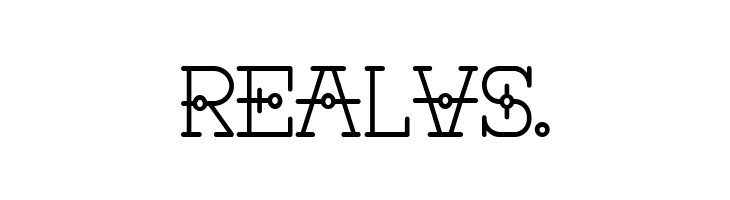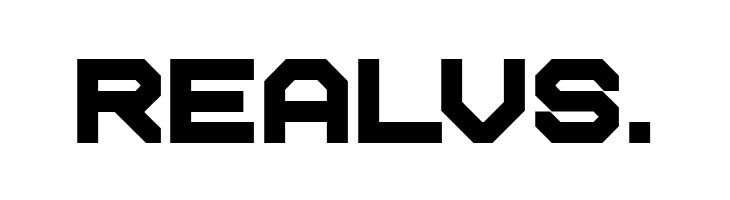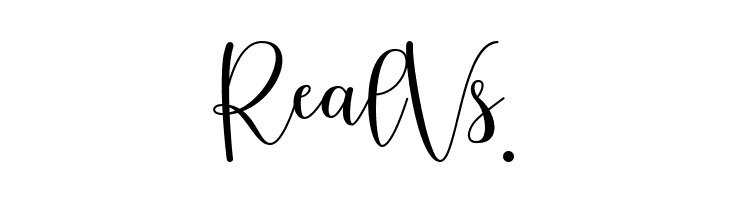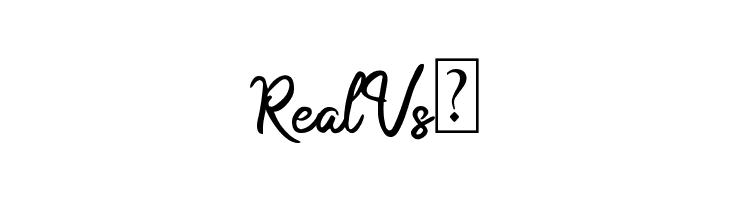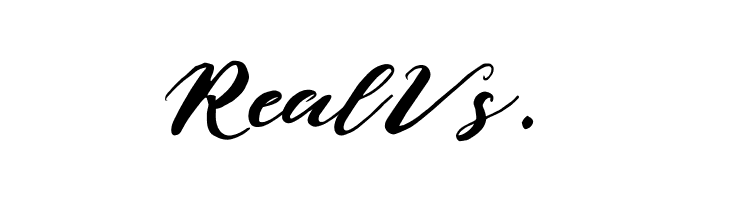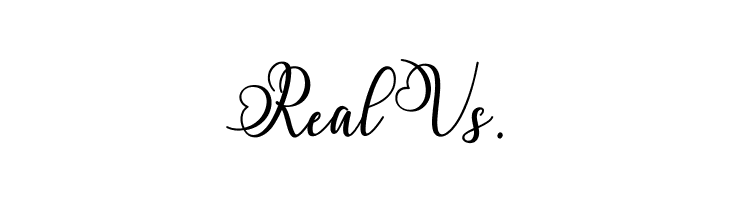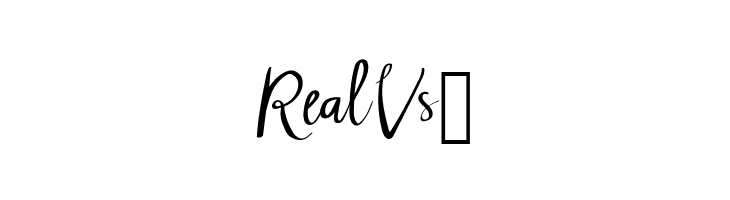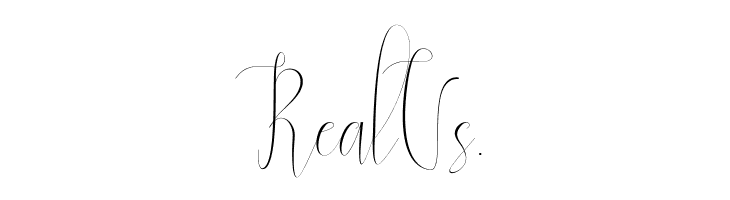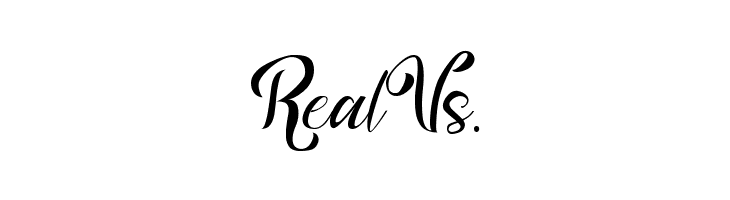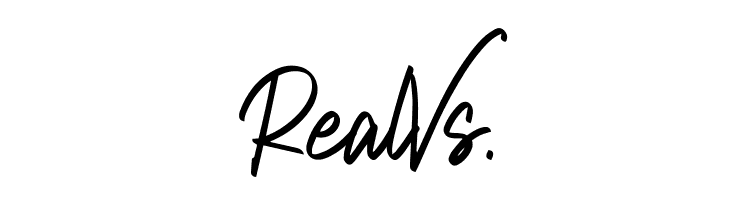
• Nafisa
A playful, handwritten font with tall, narrow letterforms and whimsical strokes.
• Nagaro
A modern, geometric font with rounded edges and uniform width.
• Nagata
A sophisticated cursive font with elegant loops and swashes.
• Nagata Script
A graceful script font with fluid, cursive strokes and elegant flourishes.
• naghitaBrush
A dynamic, brush-style cursive font with a handcrafted feel.
• Nagitta Personal Use
An elegant, flowing script font with ornate, cursive letterforms.
• Nagoya
A smooth, flowing script font with a natural handwriting style.
• Naila
A graceful script font with flowing, cursive strokes and elegant loops.
• nalicha
An elegant, flowing script font with ornate, cursive strokes.
• nalicha
A flowing, cursive script font with elegant loops and swashes.
• Namasia
An elegant, flowing script font with a cursive, handwritten style.
• Name Smile
• Namilla
An elegant script font with flowing, decorative cursive letters.
• Namilla
An elegant and sophisticated cursive font with decorative flourishes.
• Namso